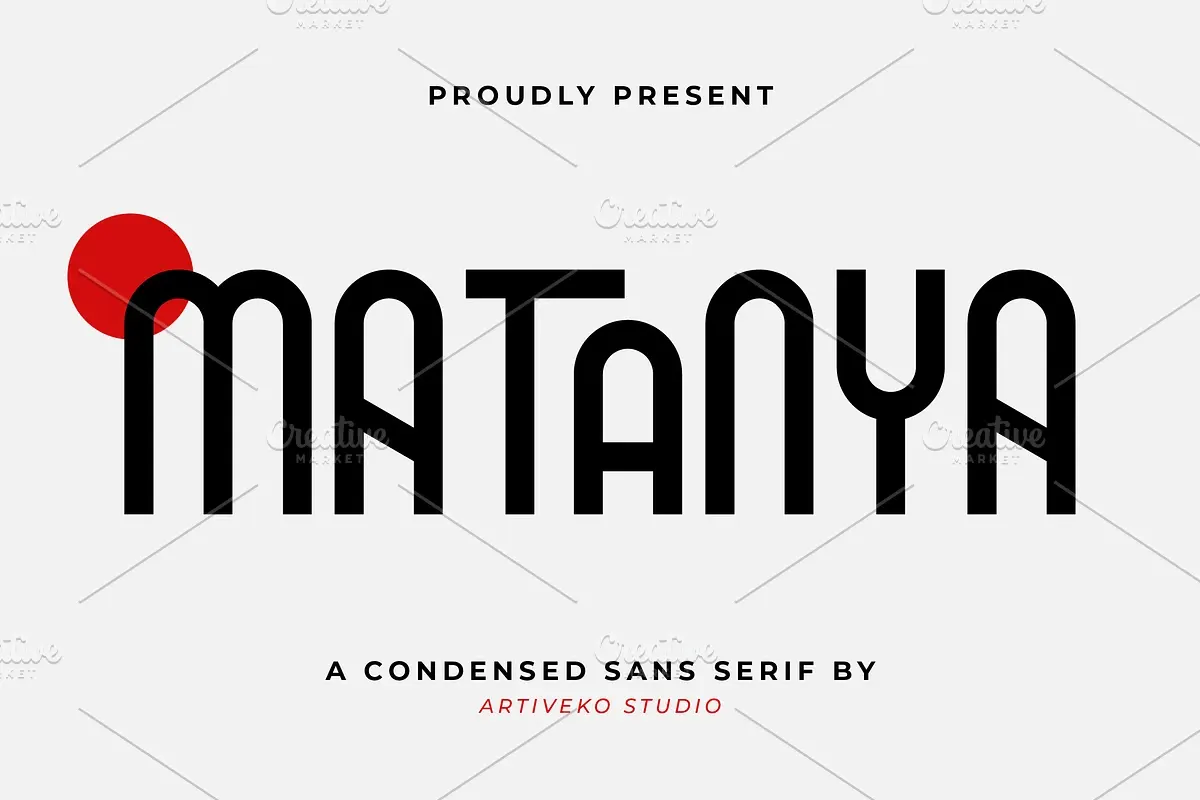
Matanya Condensed Logo Font Free Download is a sleek and modern typeface designed with precision and minimalism in mind. Its condensed structure, clean lines, and geometric elegance make it ideal for logos, branding, packaging, and editorial headlines where space-saving style meets bold visual impact.
With its narrow form and refined simplicity, Matanya brings a sense of professionalism and sophistication to every design. It's especially effective in fashion, tech, architecture, and luxury branding where a modern aesthetic is key.